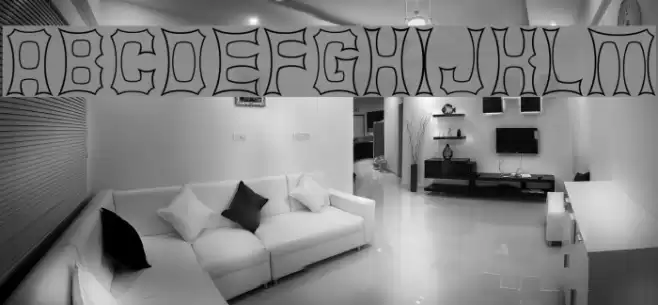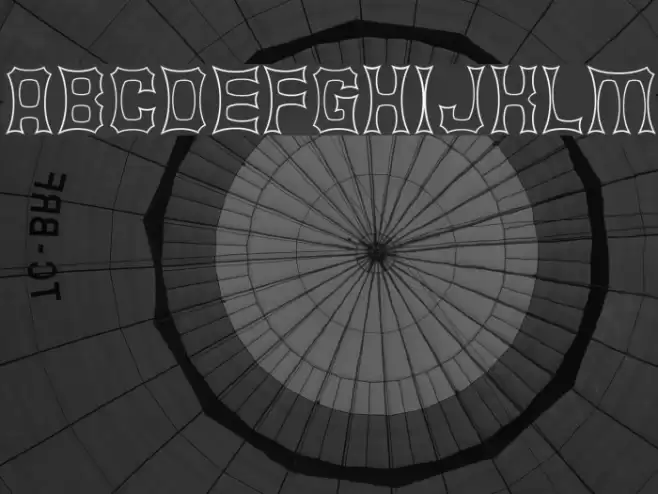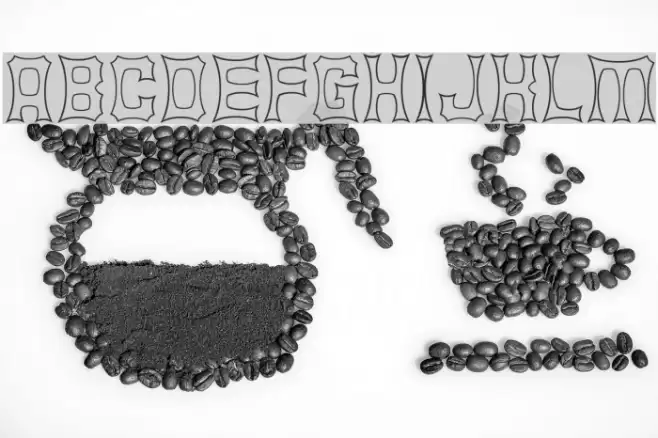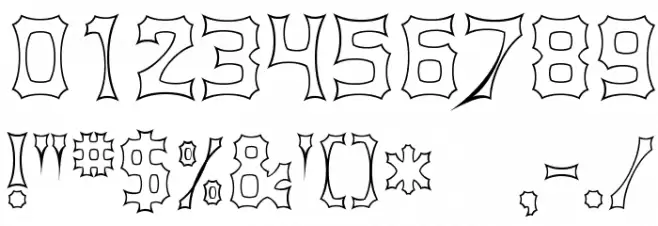
Shurkin Font
Shurkin Description
This font features a distinctive and edgy design, characterized by sharp, angular lines and pointed serifs that give it a unique, almost gothic appearance. The uppercase and lowercase letters maintain a consistent style, with exaggerated curves and spikes that create a sense of movement and dynamism. The numerals and special characters follow the same aesthetic, ensuring a cohesive look across all text elements. The font's intricate details and bold outlines make it stand out, ideal for projects that require a dramatic and eye-catching typeface.
A sharp, angular font with a gothic and edgy style from Uncategorized fonts.
- Proposed Projects: Perfect for Halloween-themed designs, rock band logos, edgy posters, or any project needing a dramatic flair.
- Overall Style: Gothic, Edgy, Dramatic
- Use Case: Logos, Posters, Themed Events